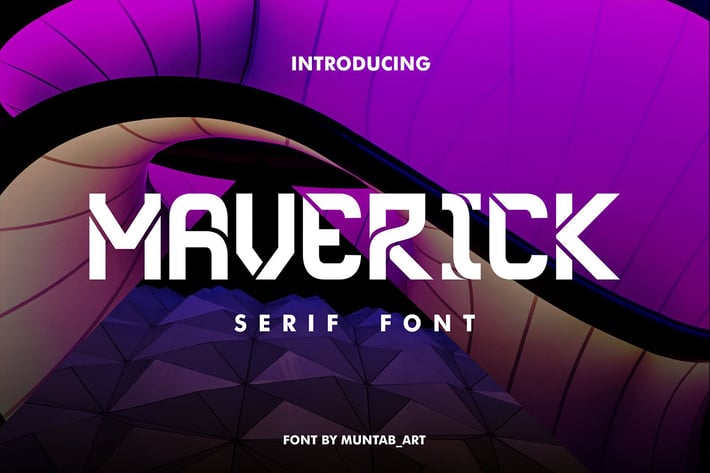
Maverick | Modern Font
Maverick fonts includes uppercase letters, numerals, a large range of punctuation. Sans serif font with modern style. Created for poster, web design, branding, illustrations, badges and some other works.